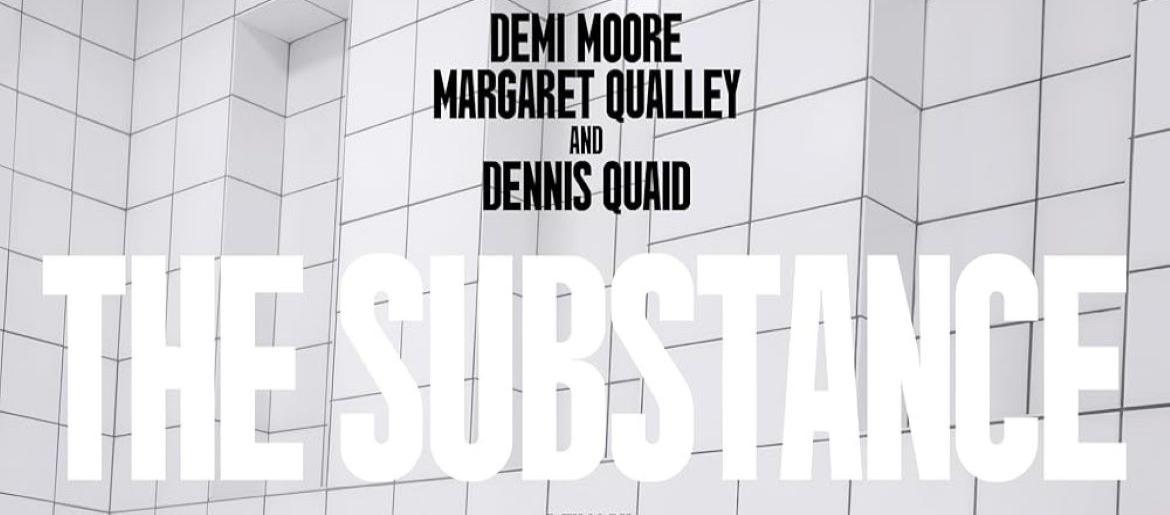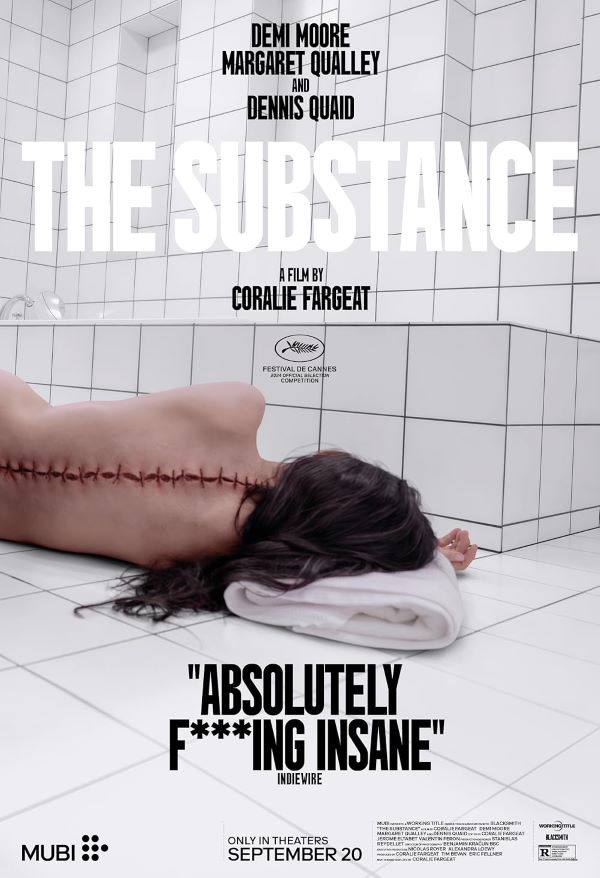
The Substance Font
What Font is The Substance?
The The Substance Font used in the film’s title appears to be a custom-designed condensed sans-serif typeface, created to look bold, stark, and commanding. For designers who want to recreate a similar look, one of the closest options is the premium font Industrial Gothic Pro Single Line, however there is also a free alternative font available that mirrors the strong, narrow, all-caps style of the original title.
About The Substance
The Substance (2024) is a body-horror/thriller directed by Coralie Fargeat. It follows former TV-star Elisabeth Sparkle and her younger self, Sue, as they navigate the horrifying consequences of using a mysterious anti-ageing serum. The film’s visual identity — including the stark and authority-driven typography — underscores themes of control, transformation and the pressure of perfection.